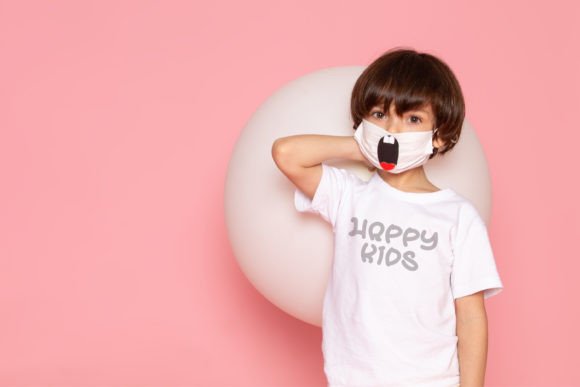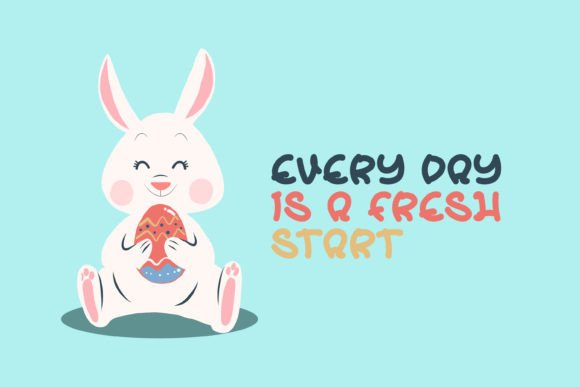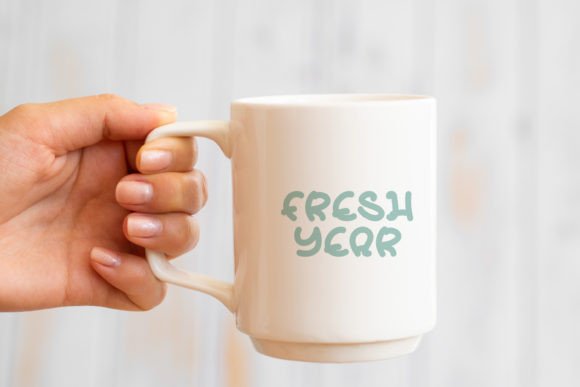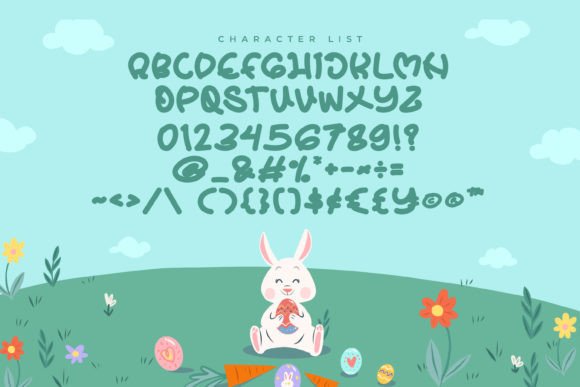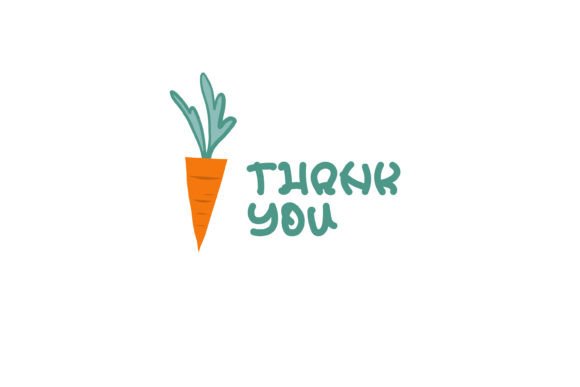
Cute Rabbit Font: The Perfect Choice for Playful Designs
Are you looking for a font that can add a touch of playfulness and cuteness to your designs? Look no further than the Cute Rabbit Font! This adorable display font is perfect for children’s activities, school projects, and any other design that requires a fun and youthful vibe.
What is Cute Rabbit Font?
Cute Rabbit Font is a playful and cute display font that embodies trendiness and authenticity. Its unique design makes it stand out from other fonts, and its friendly appearance is sure to capture the attention of your audience. Whether you’re designing a poster, a flyer, or a digital graphic, Cute Rabbit Font is the perfect choice.
Characteristics of Cute Rabbit Font
Cute Rabbit Font has several characteristics that make it a great choice for designers and crafters. Some of its key features include:
- Playful design: Cute Rabbit Font has a playful and fun design that is sure to bring a smile to your audience’s faces.
- Cute appearance: The font’s cute appearance makes it perfect for designs that require a friendly and approachable vibe.
- Trendiness: Cute Rabbit Font is a trendy font that is sure to make your designs look modern and fresh.
- Authenticity: The font’s unique design makes it authentic and stands out from other fonts.
Uses of Cute Rabbit Font
Cute Rabbit Font is a versatile font that can be used for a variety of design projects. Some of the most popular uses of this font include:
- Children’s activities: Cute Rabbit Font is perfect for children’s activities such as coloring pages, worksheets, and activity sheets.
- School projects: The font is also great for school projects such as posters, presentations, and reports.
- Digital graphics: Cute Rabbit Font can be used to create digital graphics such as social media posts, blog headers, and email newsletters.
- Crafting projects: The font is also great for crafting projects such as scrapbooking, card making, and paper crafting.
Benefits of Using Cute Rabbit Font
Using Cute Rabbit Font in your designs has several benefits. Some of the most significant advantages of using this font include:
- Easy to read: Cute Rabbit Font is easy to read, making it perfect for designs that require a clear and concise message.
- Fun and playful: The font’s playful design makes it perfect for designs that require a fun and youthful vibe.
- Customizable: Cute Rabbit Font can be customized to fit your design needs, making it a great choice for designers and crafters.
- Unique: The font’s unique design makes it stand out from other fonts, making it a great choice for designers who want to create unique and original designs.
Tips for Using Cute Rabbit Font
Here are some tips for using Cute Rabbit Font in your designs:
- Use it for headings: Cute Rabbit Font is perfect for headings and titles, making it a great choice for designs that require a clear and concise message.
- Pair it with other fonts: The font can be paired with other fonts to create a unique and visually appealing design.
- Experiment with colors: Cute Rabbit Font can be used with a variety of colors to create a design that is fun and playful.
- Use it for digital and print designs: The font can be used for both digital and print designs, making it a great choice for designers who work on a variety of projects.
Cute Rabbit Font is a playful and cute display font that is perfect for designers and crafters who want to add a touch of fun and youthfulness to their designs. Its unique design, trendiness, and authenticity make it a great choice for children’s activities, school projects, and any other design that requires a friendly and approachable vibe. With its ease of use, customizability, and uniqueness, Cute Rabbit Font is a great addition to any designer’s toolkit.